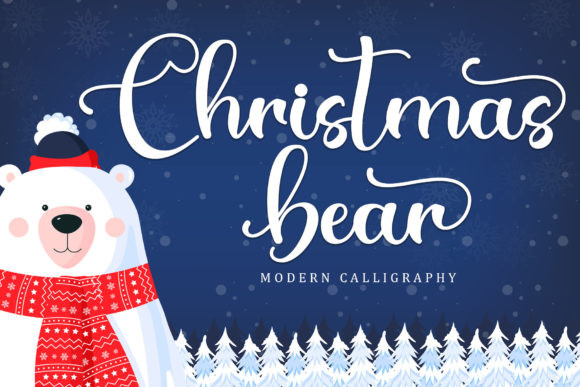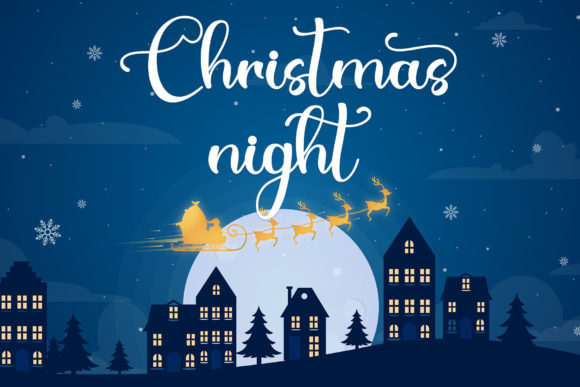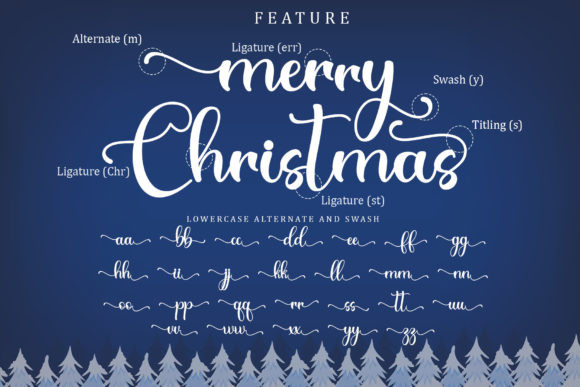
Christmas Bear Font
Christmas Bear FontChristmas Bear is a sweet, joyful and festive handwritten font. It is PUA encoded which means you can access all of the glyphs and swashes with ease!